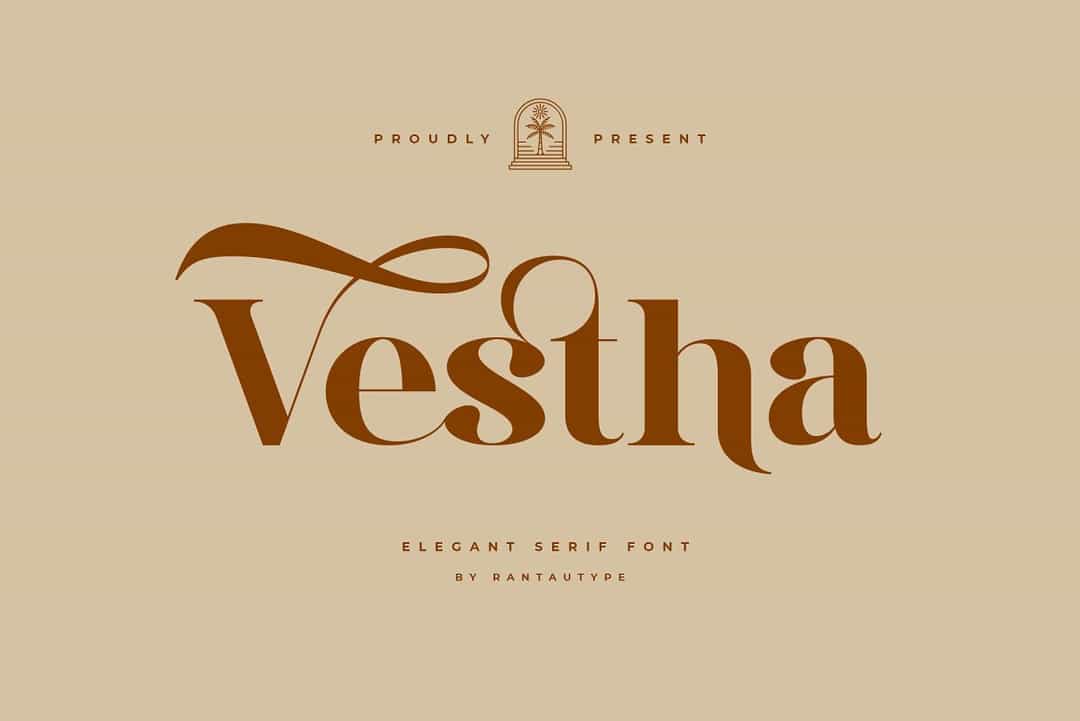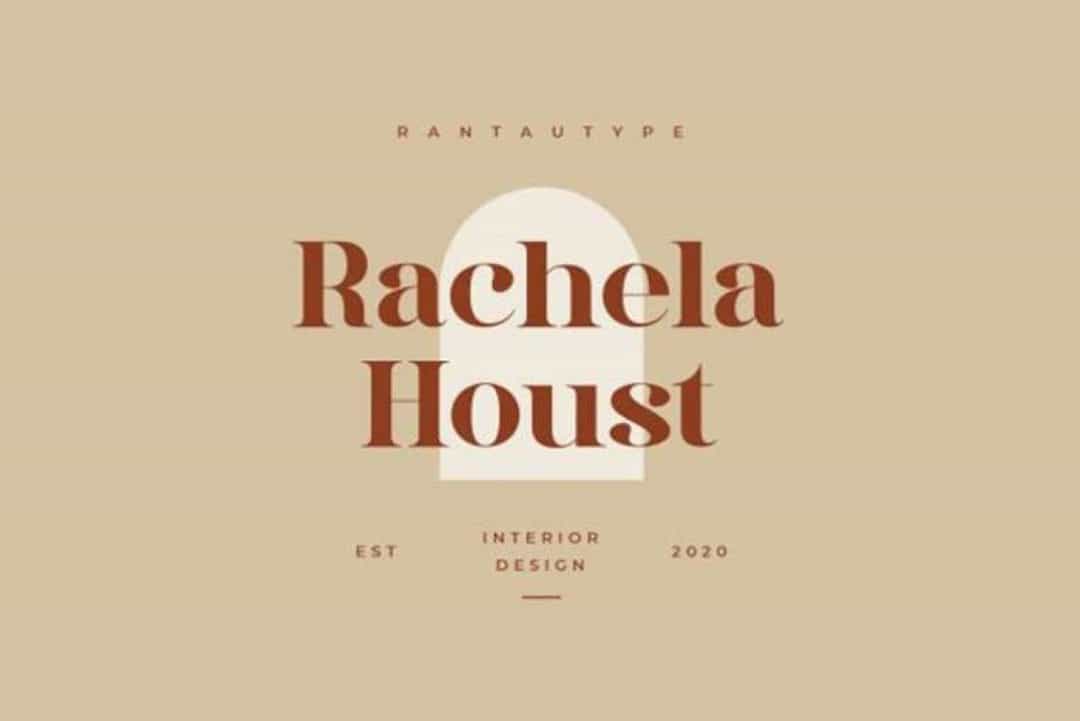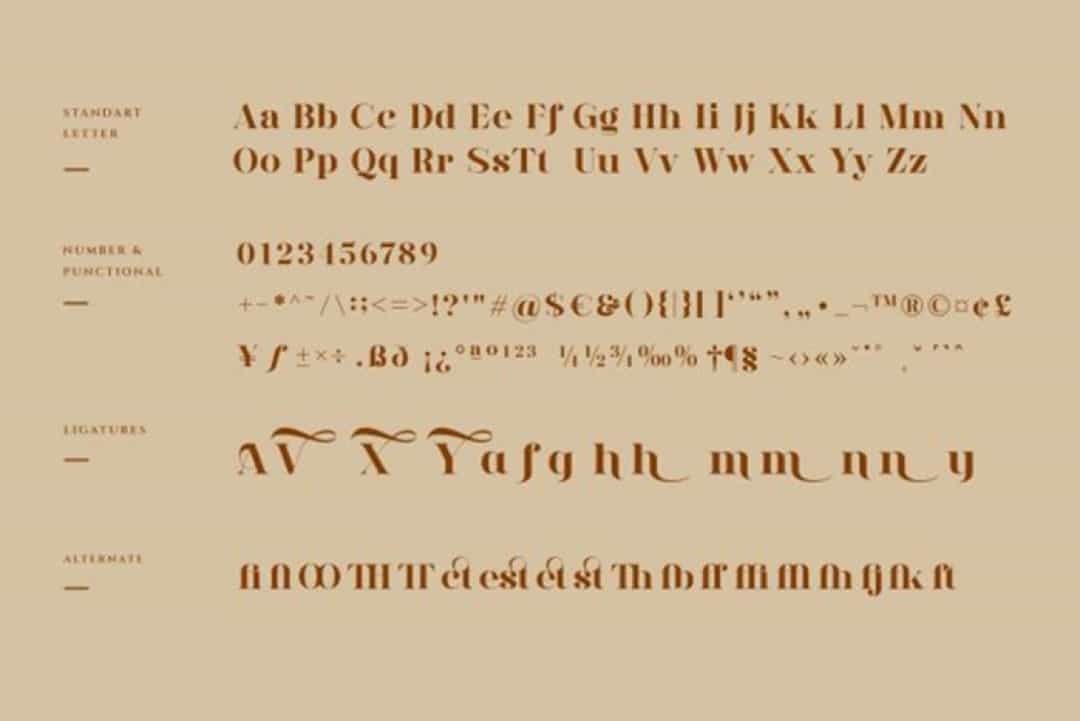
Vestha is an exquisite serif font with an eye-catching form. Many professional brands require an appealing logo to successfully represent themselves, which was why I created Opsi. Opsi is ideal for branding and logo design – expect classy sophistication elegant and completely distinctive logos using Opsi font! Vestha here to elevate your brand shine!!!